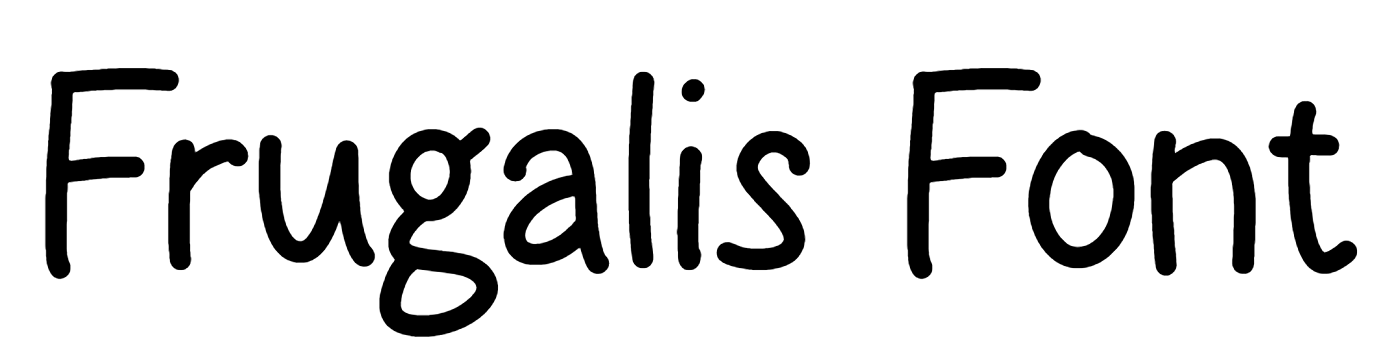
Frugalis
Frugalis is a comic font made by MJType (Muhamad Junaid) (2023). Its bouncy, rounded letters feel playful, like lettering from a cartoon or a comic book. It's a free download, and you can try it with your own text in the preview above first.
- Designer: MJType (Muhamad Junaid)
- Category: Comic font
What You Can Type With Frugalis
Frugalis covers the full alphabet in upper and lowercase, plus all ten numbers, so you can set names, dates and prices without switching fonts. Everyday marks like &, !, ? and @ are there too. Thanks to its accented letters, it also works for Spanish, French, German, Portuguese and Italian, not just English.
Where Frugalis Works Best
Think of Frugalis for comic strips, speech bubbles and playful headings. Cartoon fonts are great for short, fun lines. If you place it over a busy photo, add a thick outline or a drop shadow so it stays readable.
Does Frugalis support accented letters?
Yes. Frugalis includes the accented letters needed for Spanish, French, German, Portuguese and Italian, so it works for more than just English.